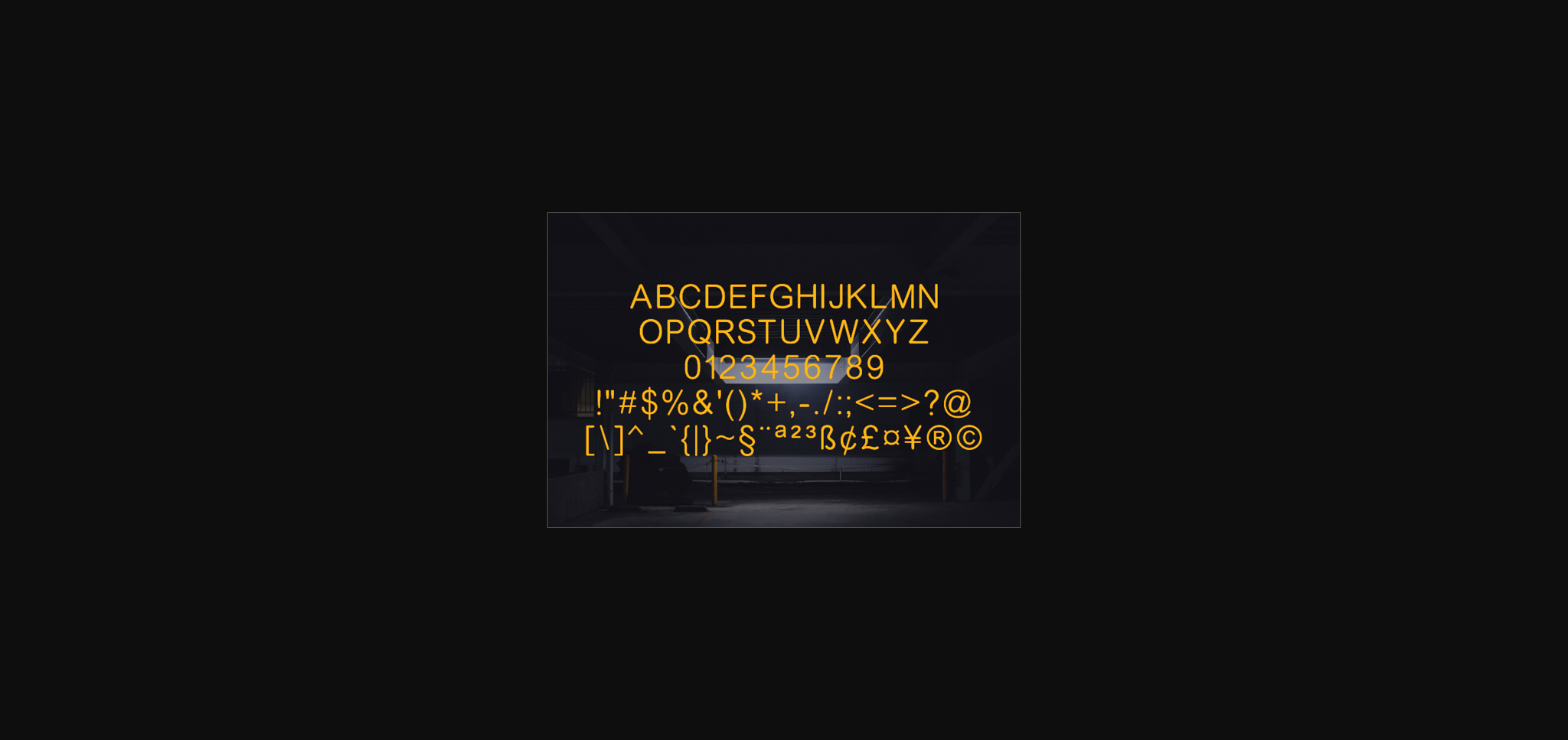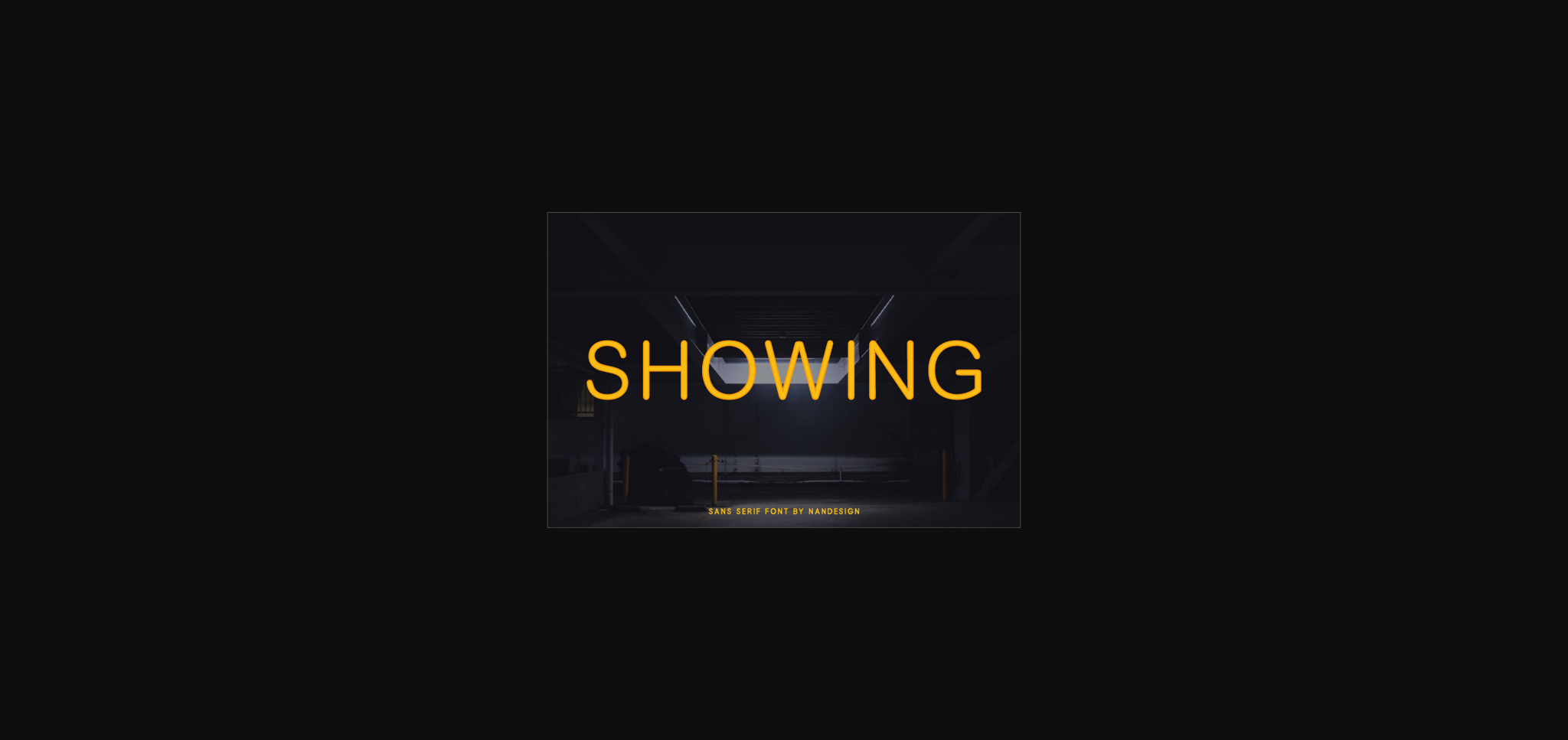
HomeSans Serif FontsShowing Font Sans Serif Fonts Showing Font FacebookXPinterestWhatsApp 1 of 4 ... Showing Font Poster 2... Showing Font Poster 3... Showing Font Poster 4... About Showing Font Showing is a modern sans serif font. Delicate and romantic, Showing’s is the perfect sans for weddings, logos, quotes, print, stationery, and more! DOWNLOAD NOW People also explored Avocado Brownies Font Fitfully Font Smooth Dahlia Font Generic Centina Font Blue Sky Font Princes Rapunzel Font Hello Halloween Monogram Font Formentera Coastal Walk View | Beer Mockup 297 0 TagsShowingShowing Font Previous articleCorela FontNext articleBechtlers Font LEAVE A REPLY Cancel reply Comment: Please enter your comment! Name:* Please enter your name here Email:* You have entered an incorrect email address! Please enter your email address here Website: Save my name, email, and website in this browser for the next time I comment. Personal Use Free Arc Personal Use Free Read more about this font White Rose Personal Use Free Read more about this font Bakk Trieng Personal Use Free Read more about this font Machine House Personal Use Free Read more about this font BLOG Free vs Paid Fonts: Why Investing in Premium Fonts Is Worth It Free vs Paid Fonts: Why Premium Fonts Are Worth It in 2025 The debate of free vs paid fonts continues in the design world. While... Exploring Font Trends How to Cut Any Font on Cricut: Convert a Font to SVG (Free) Elegant Wedding Invitation Fonts – Handwritten & Script Fonts